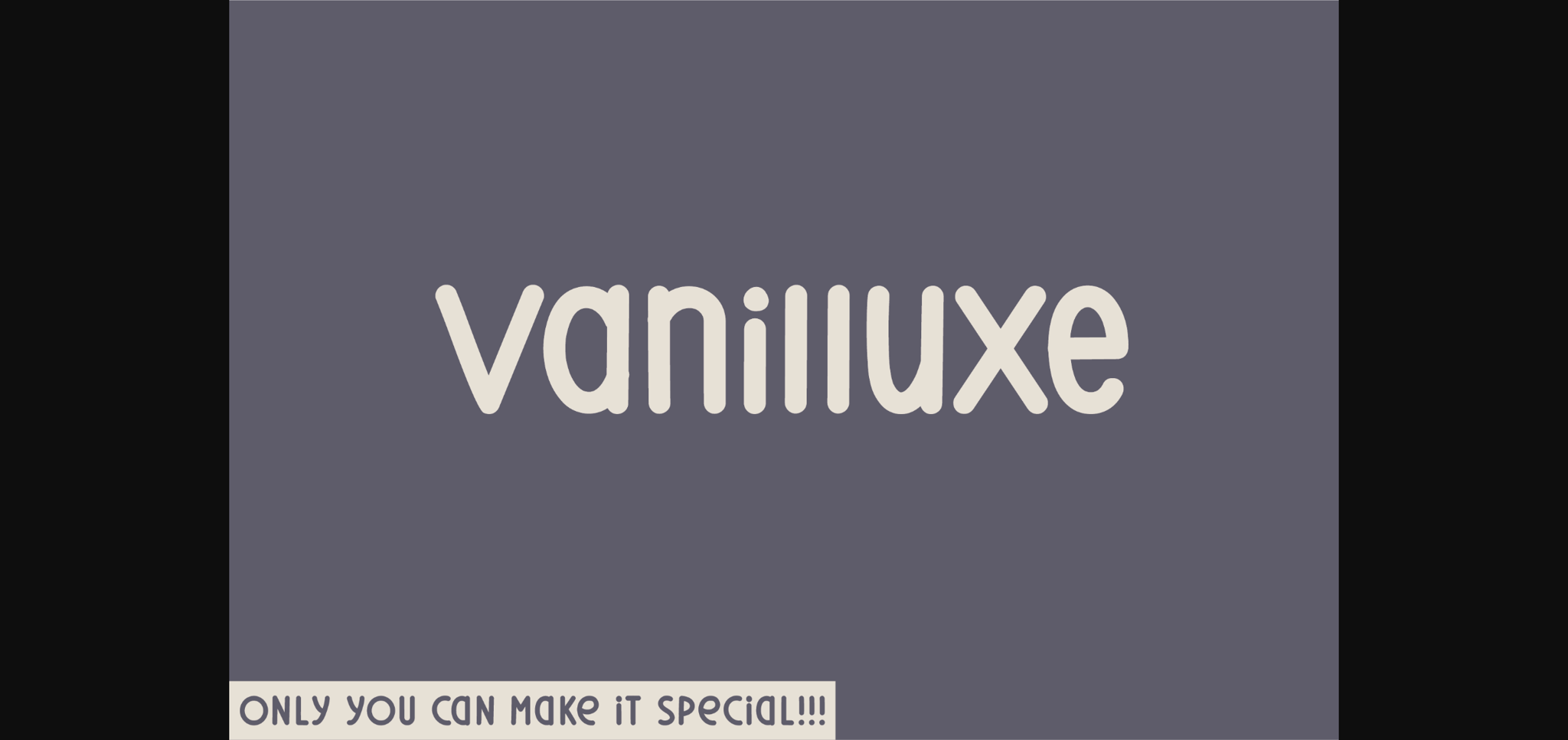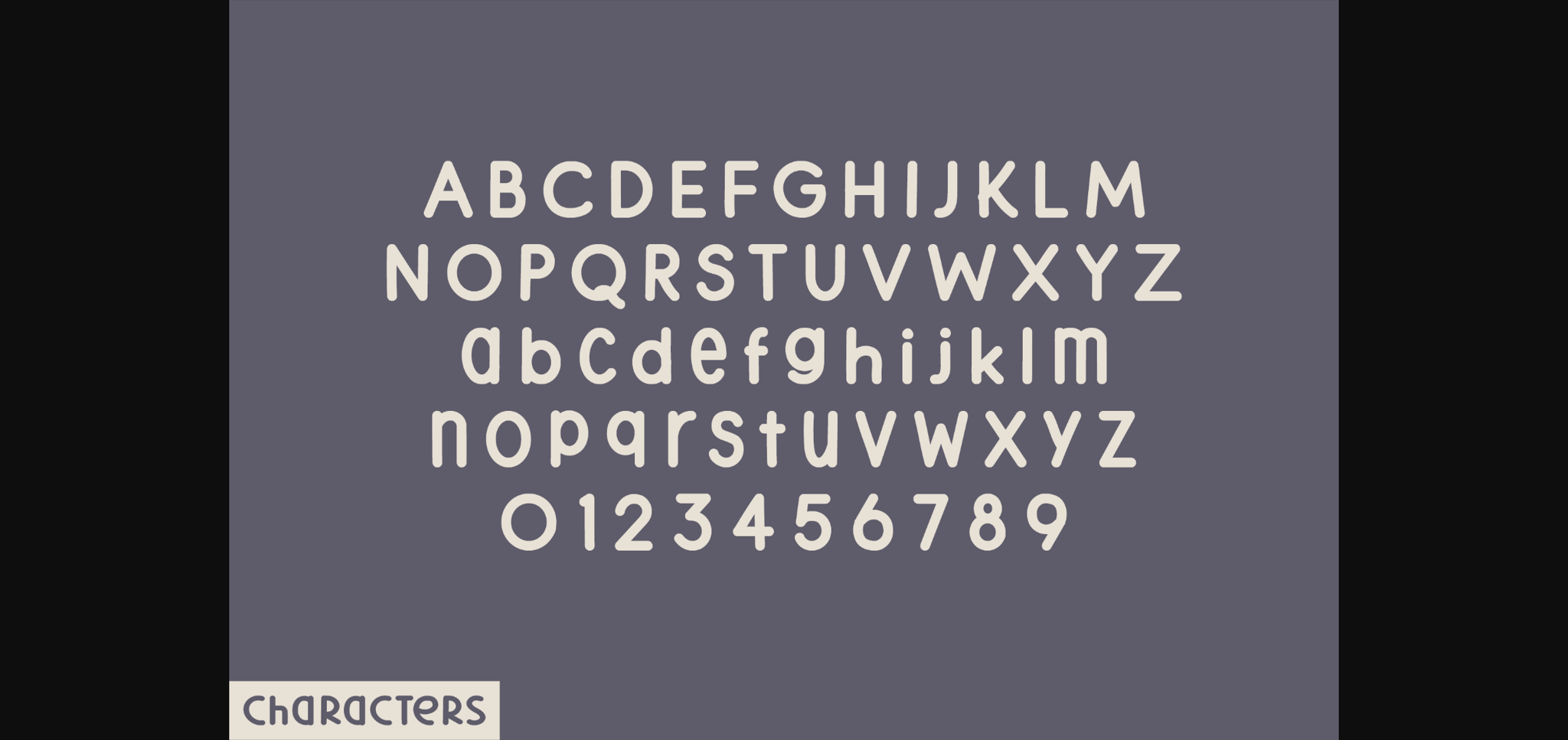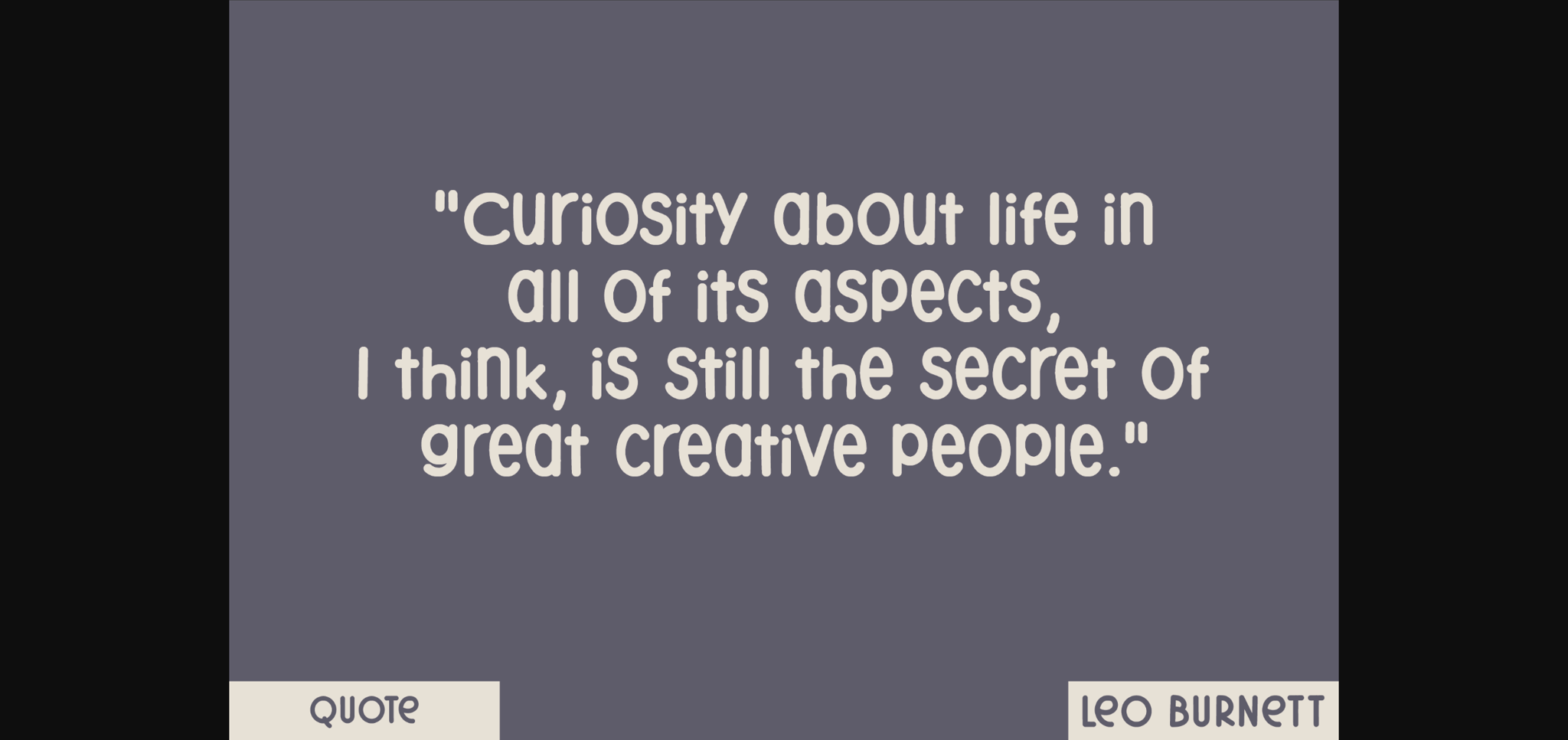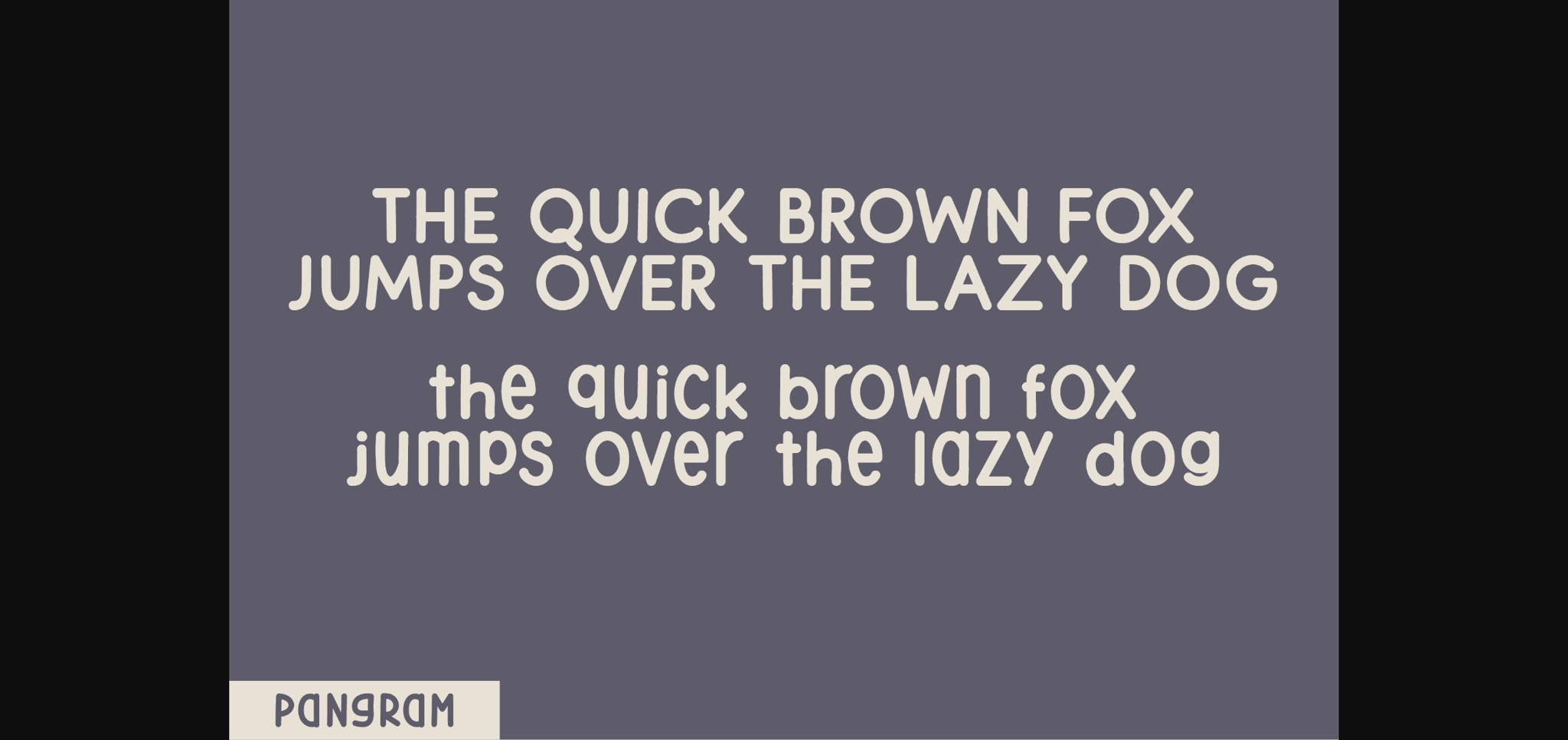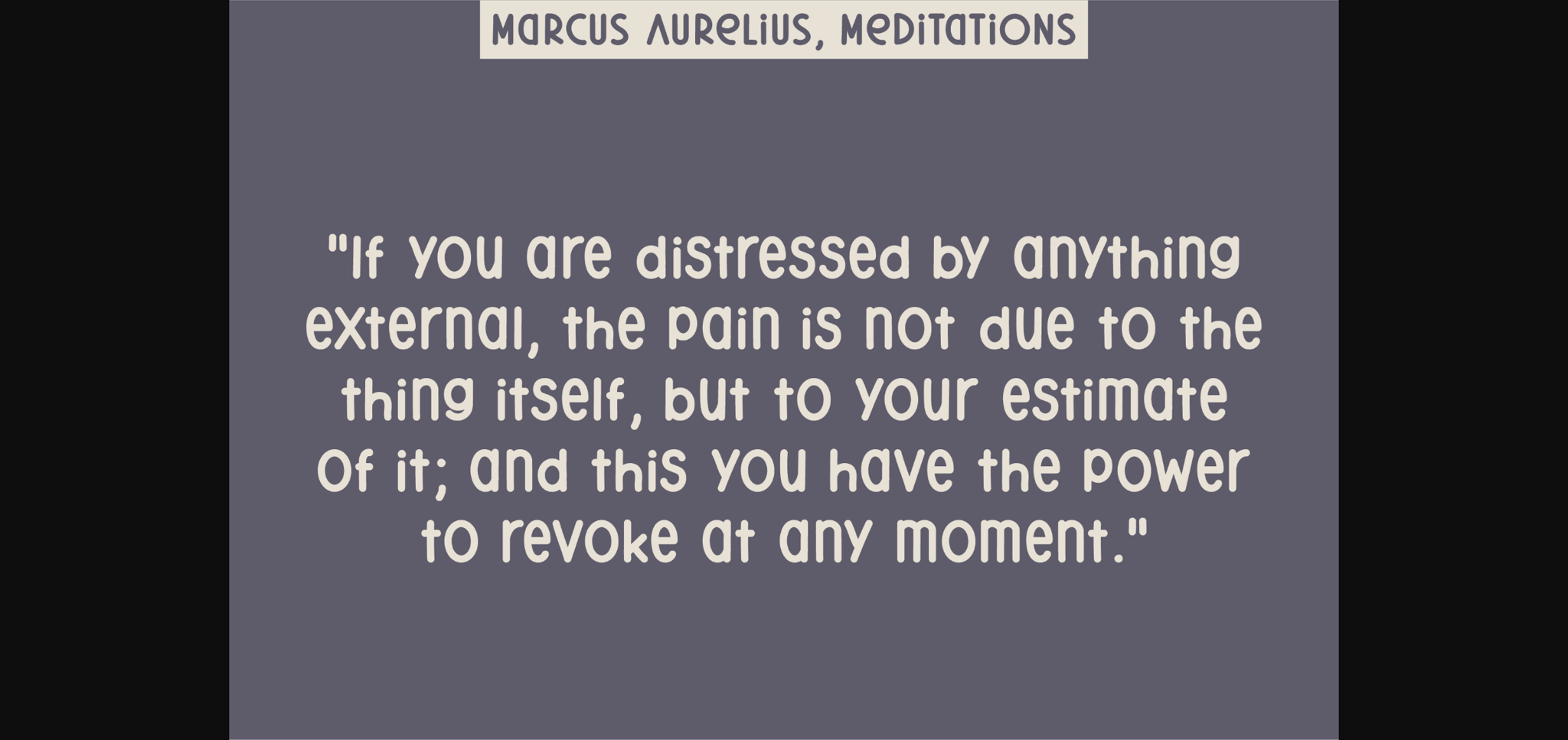
Vanilluxe Font
About Vanilluxe Font
Presenting Vanilluxe – an irresistibly charming display font that redefines the norm with its distinctive sans serif format. Boasting seamlessly rounded letter tips, this font effortlessly emits an enchanting sweetness, reminiscent of vanilla delight. Not only cool on the eyes, it also carries a fun, beautiful persona, perfect for designs looking to convey captivating messages wrapped in charm and whimsy. Dive into the Vanilluxe experience where typographic elegance meets playful creativity.